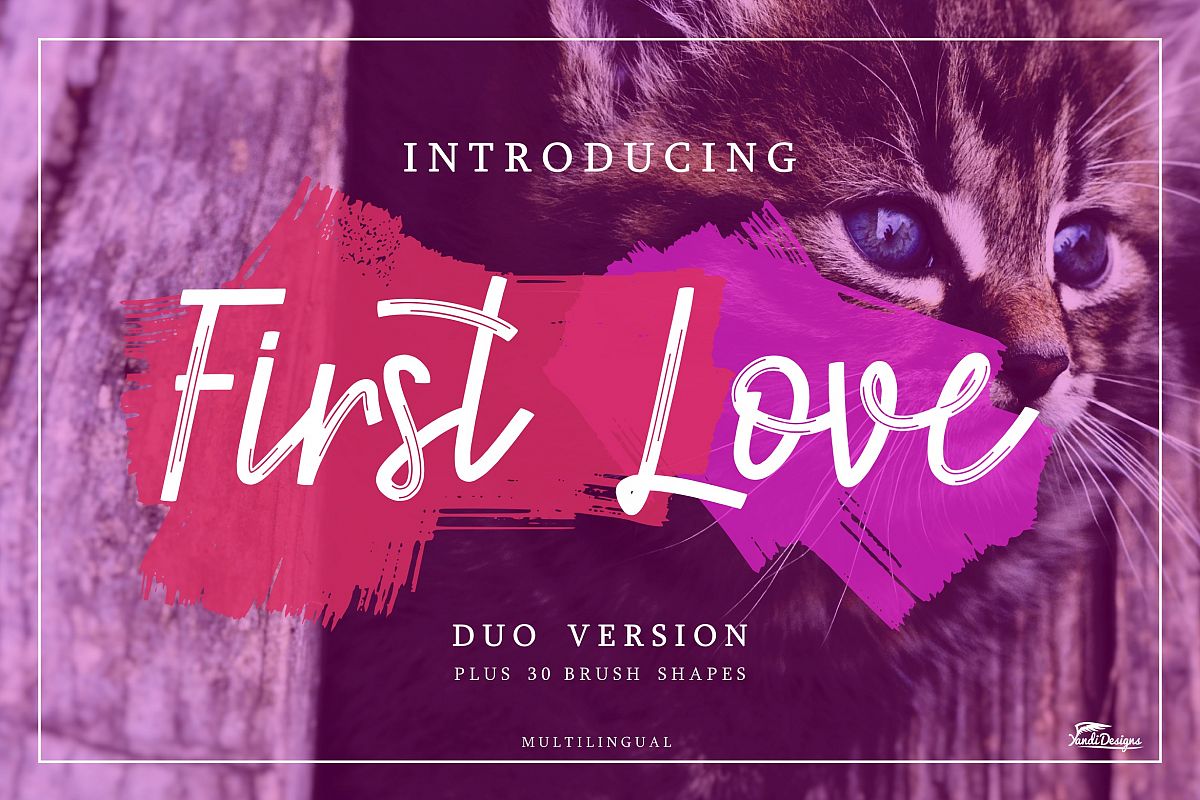
First Love
Introducing : First Love Script
We believe that every people have their first love.
However , this brand new, simple font is ready to become your collections. Suitable for many project , specially typography itself. This fonts contain standard character , number, symbol and some multilingual character that support English, Indonesian, Malay, Polish Spanish, German, Portuguese, Italian and French.
First Love
First Love Lined
This completely same with the simple version, but we add 2 line in some in the middle of main character (glyph). Hope it will feel more artistic and modern. Files in .TTF format